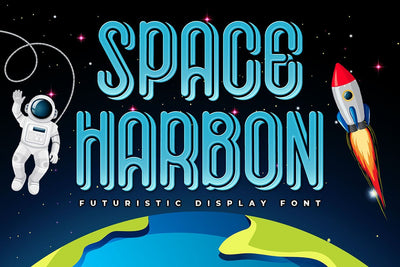
Space Harbon Display Font
Space Harbon is a cute and casual display font with an incredibly futuristic feel. This enchanting display font will turn any creative idea into a true standout.
Space Harbon would be perfect for logos & branding, photography, watermark, social media posts, advertisements, invitation, product designs, label, stationery, product packaging, special events or anything that need handwriting taste.